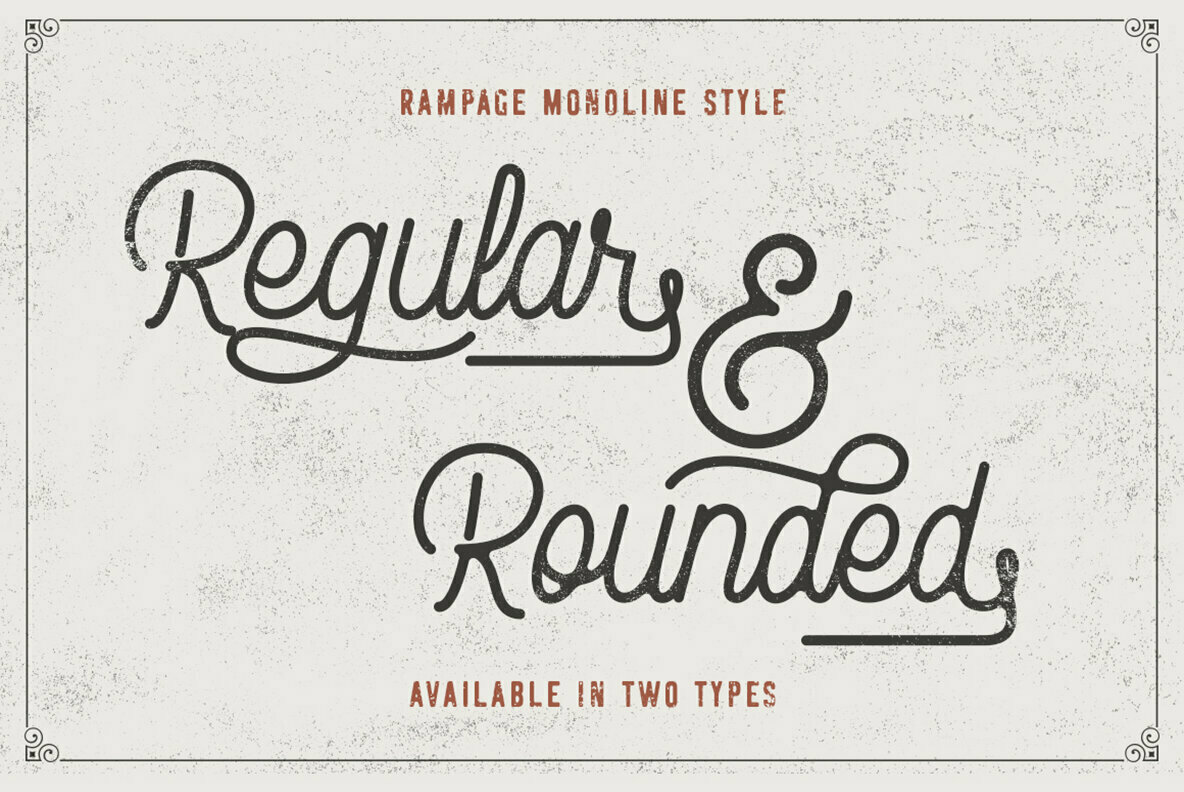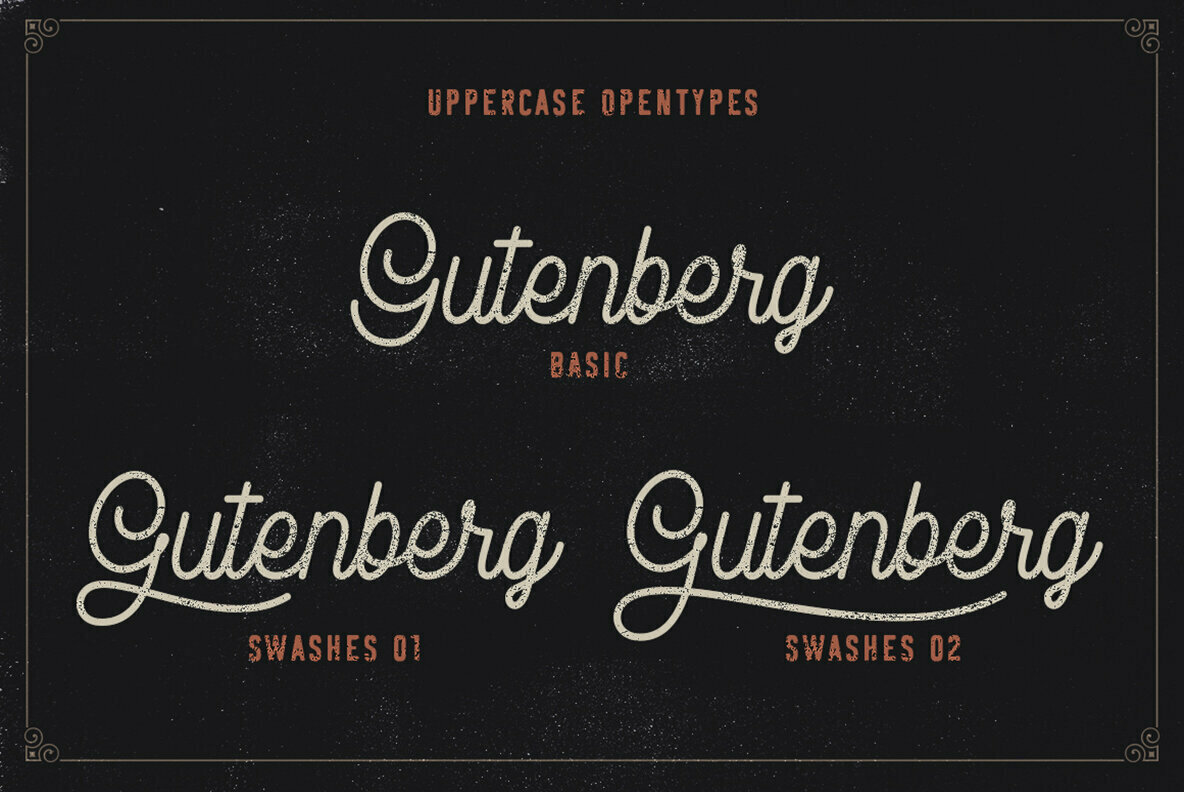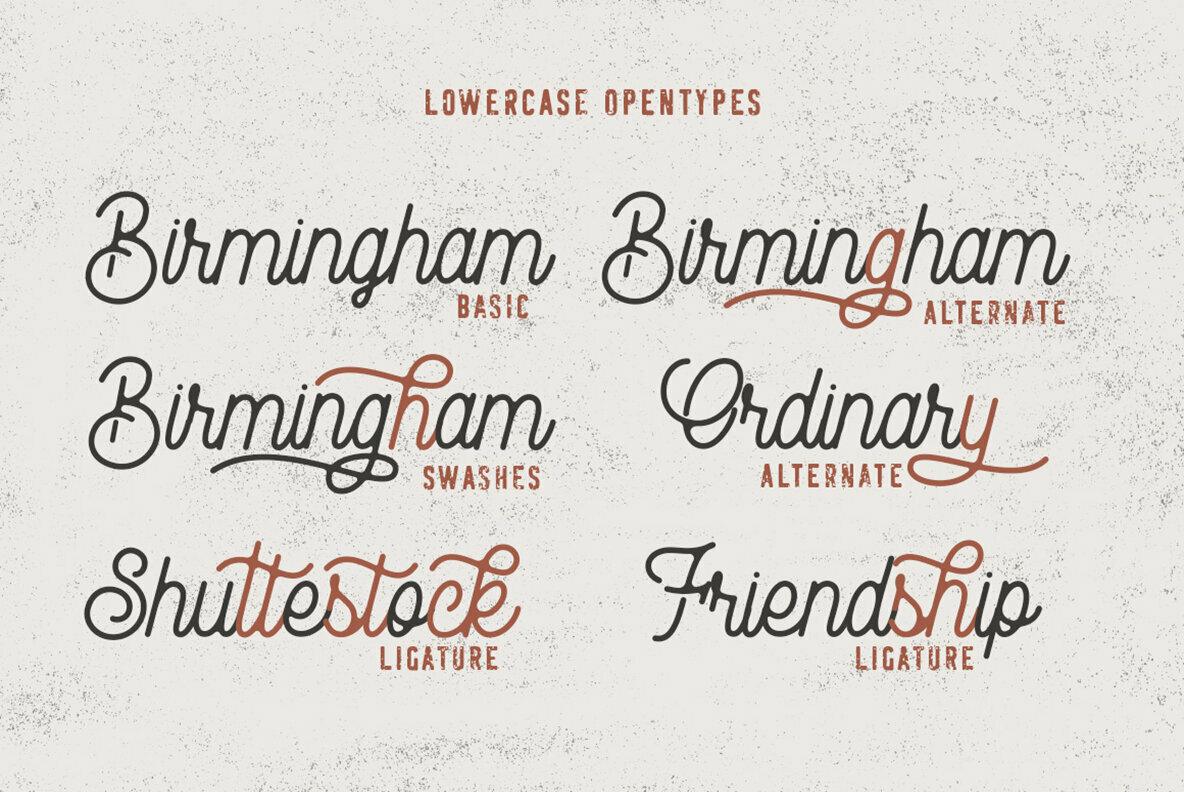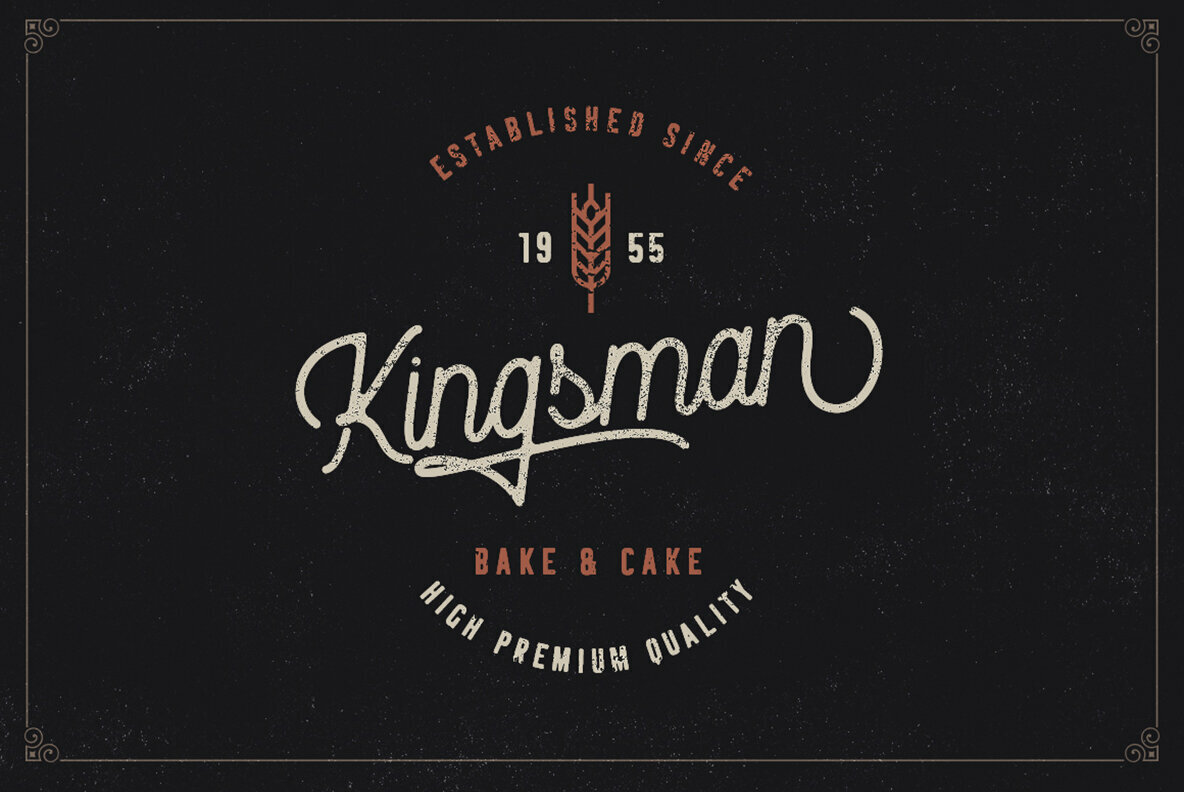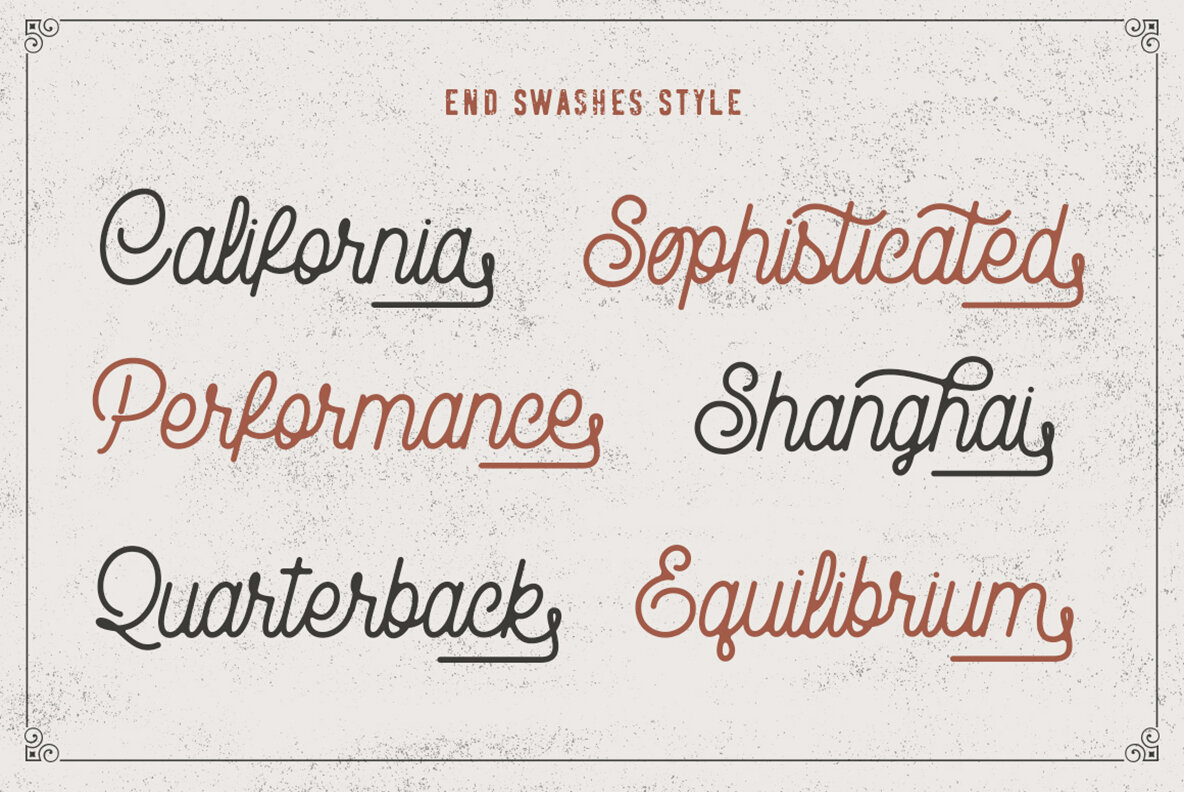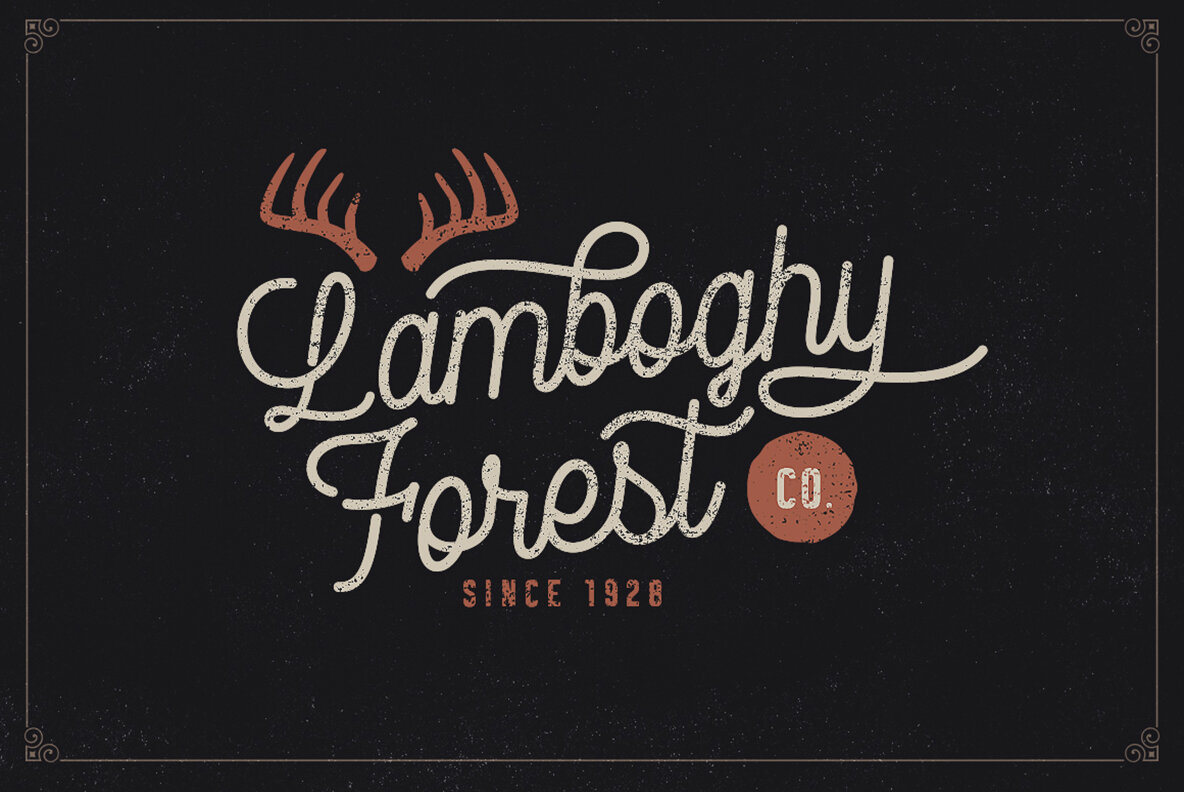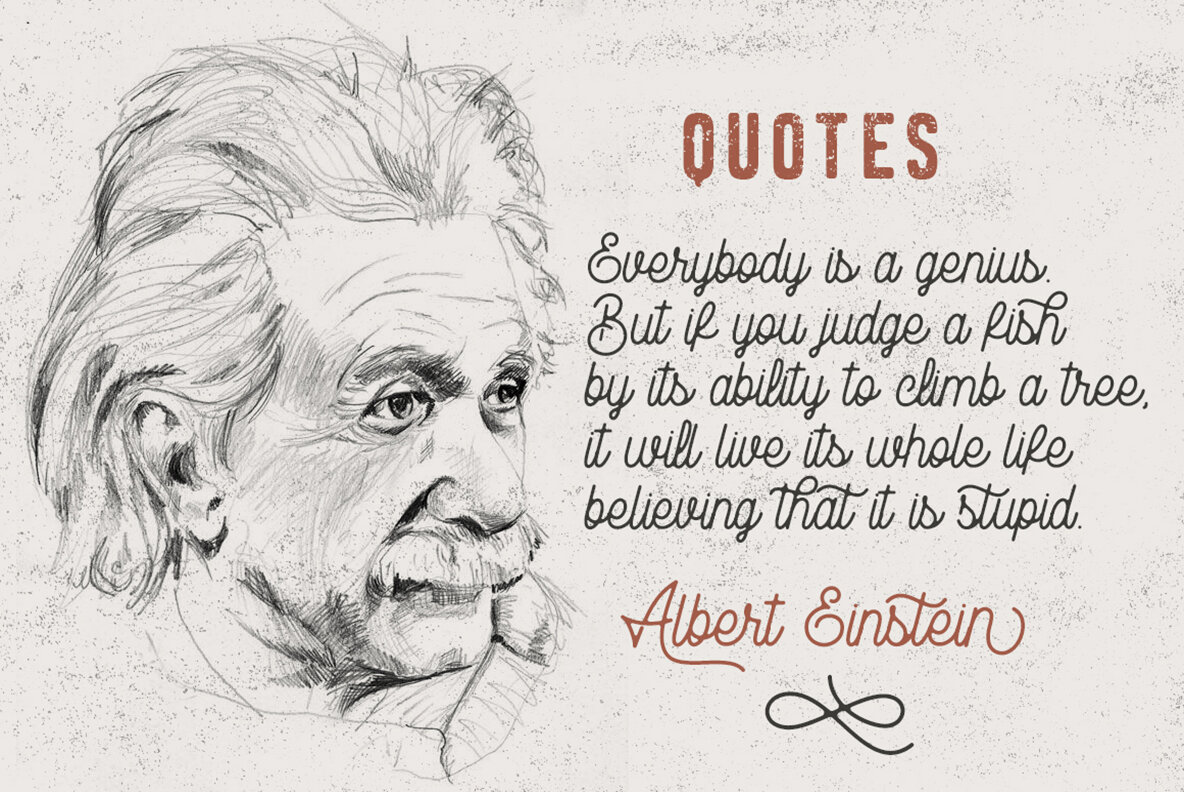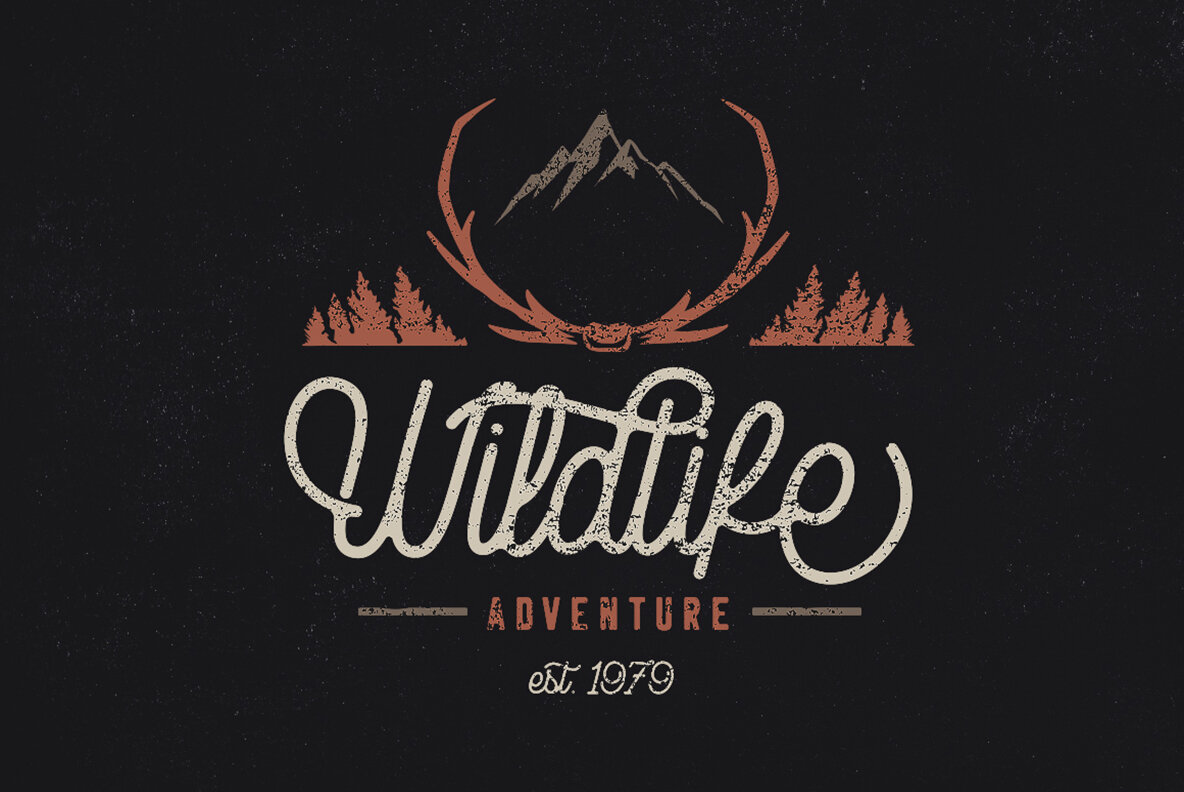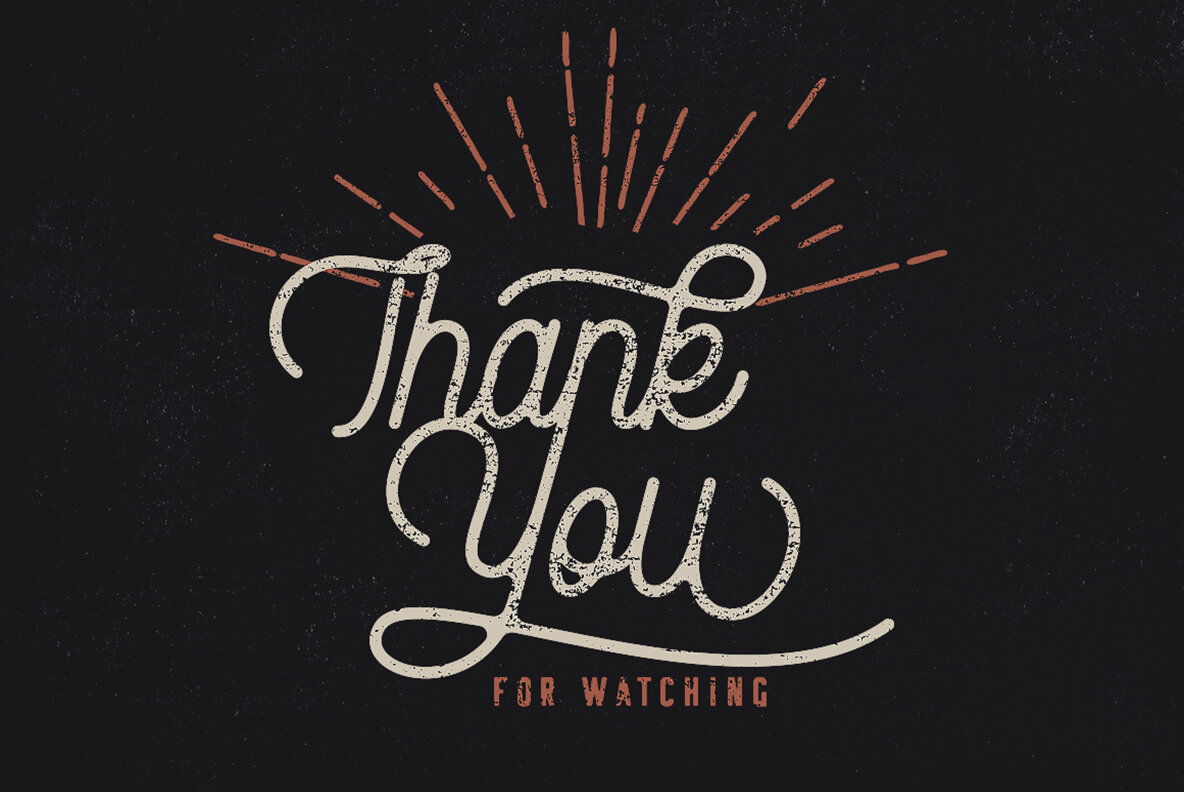
Rampage Font
Rampage Monoline
Rampage Monoline Rounded
Rampage Monoline Swahses
Rampage Monoline Swahses Round
Discover the graceful charm of Rampage, a vintage-inspired monoline script that captivates with its sweet stylistic grace. This font is perfect for those seeking a touch of elegance and classic appeal in their designs.Rampage: Vintage Monoline Script with Elegance